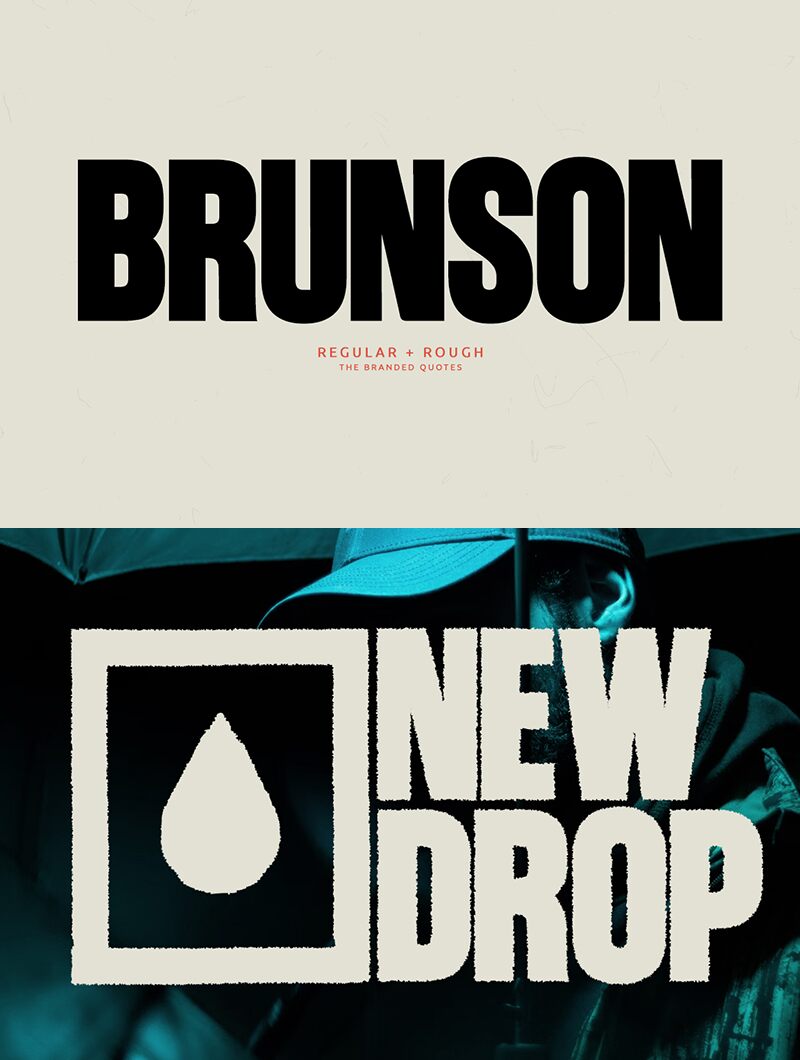
Brunson font
Brunson is a striking sans serif font designed for a variety of applications. With its two distinct styles, Brunson Regular and Brunson Rough, this font is perfect for headlines, movie titles, revolutionary posters, digital banners, album covers, and much more.
Make your branding stand out with the bold, heavy-lined characters of Brunson. The precisely tight kerning amplifies the overall impact of your designs when utilizing this font.
Brunson Regular features bold lines with sharp edges, complemented by unexpected curves on selected glyphs.
Brunson Rough showcases squiggly sides while maintaining the sans serif aesthetic and a consistent weight throughout the font.